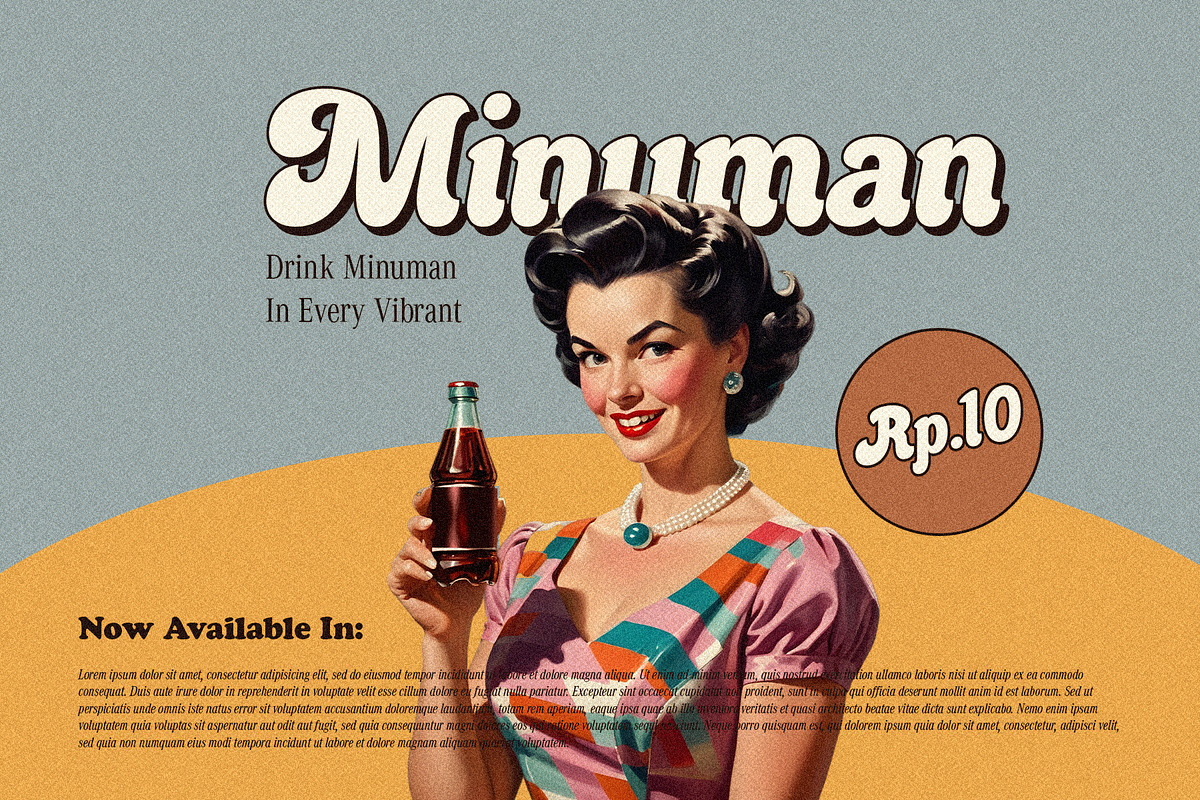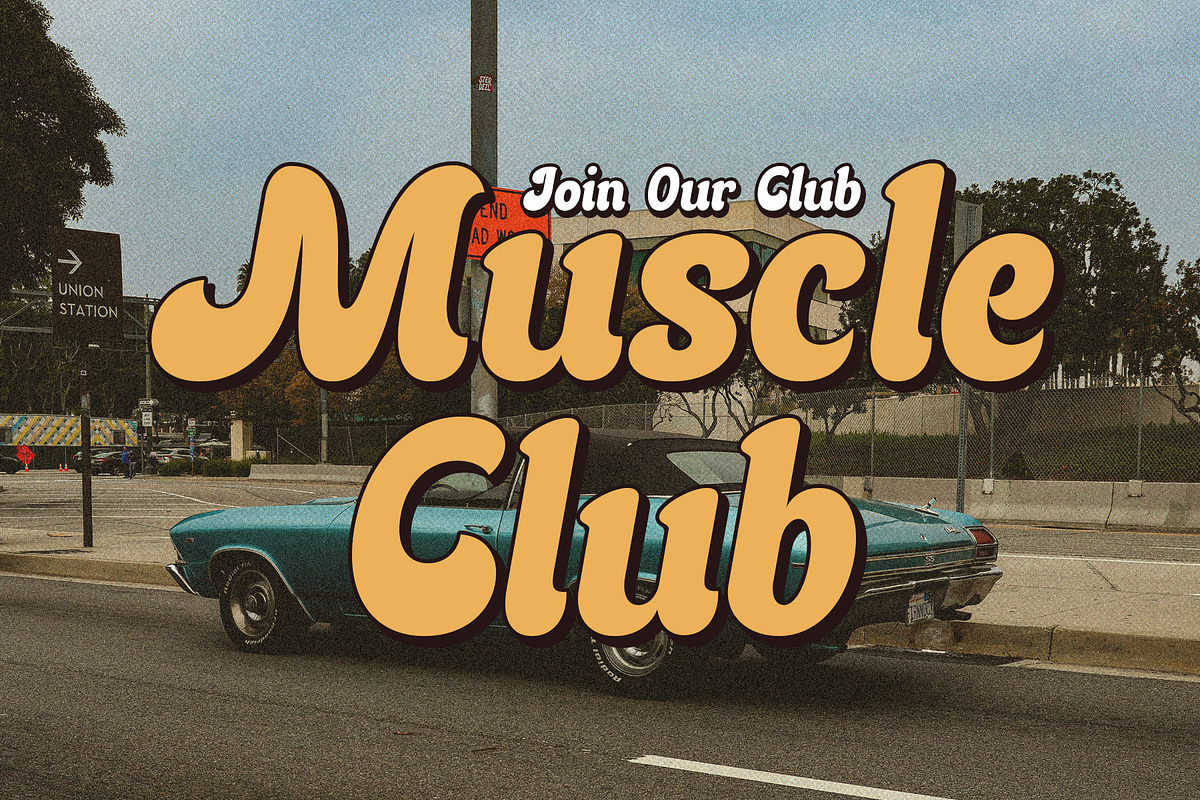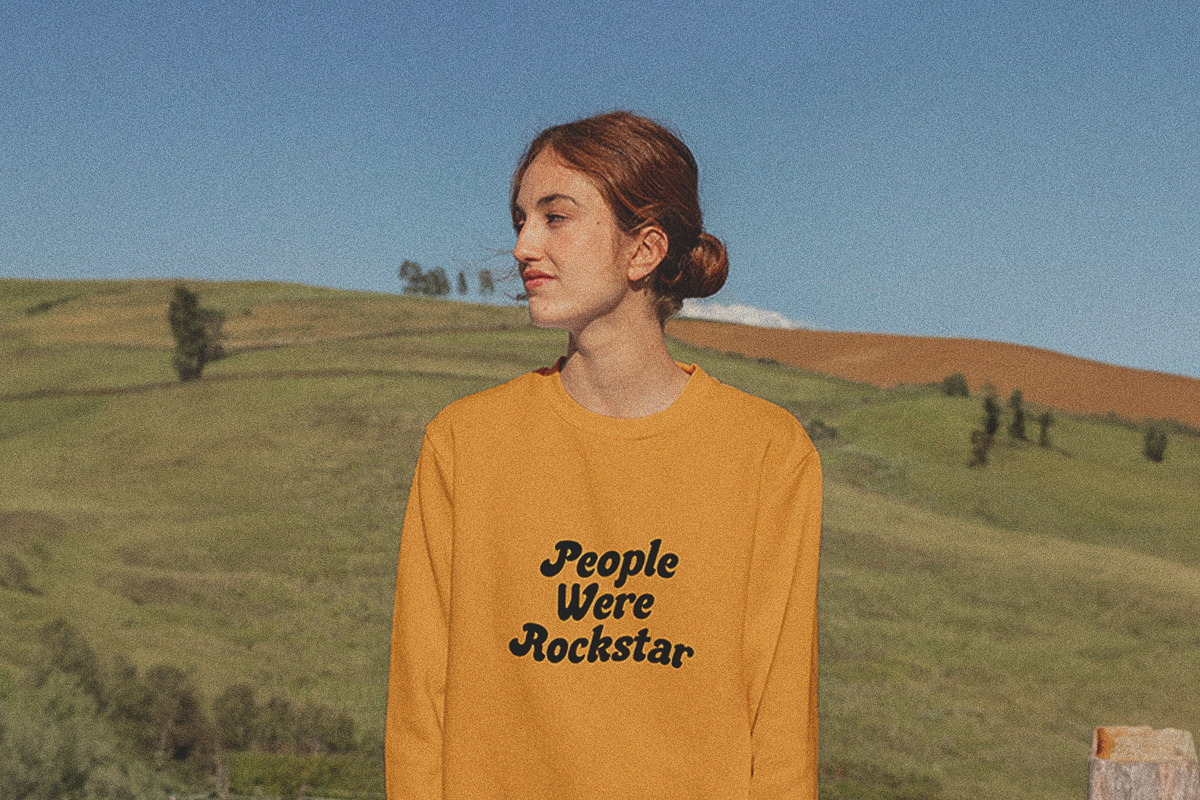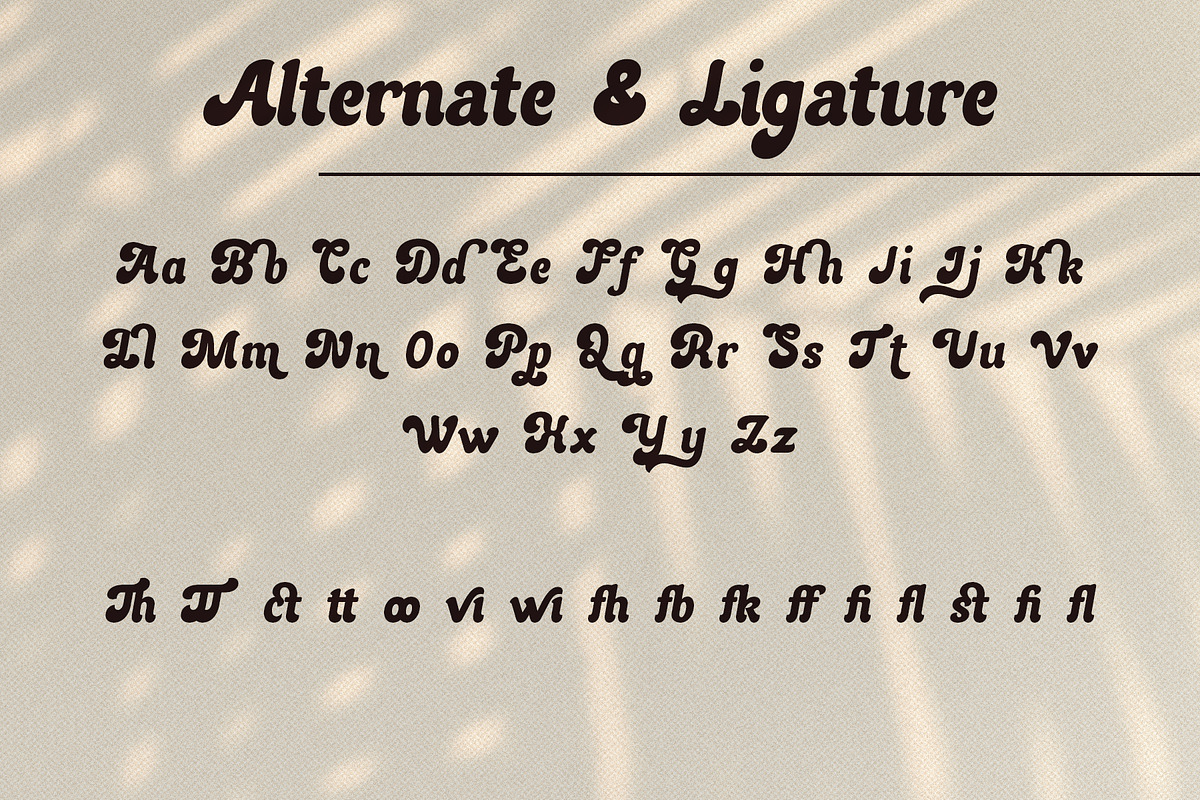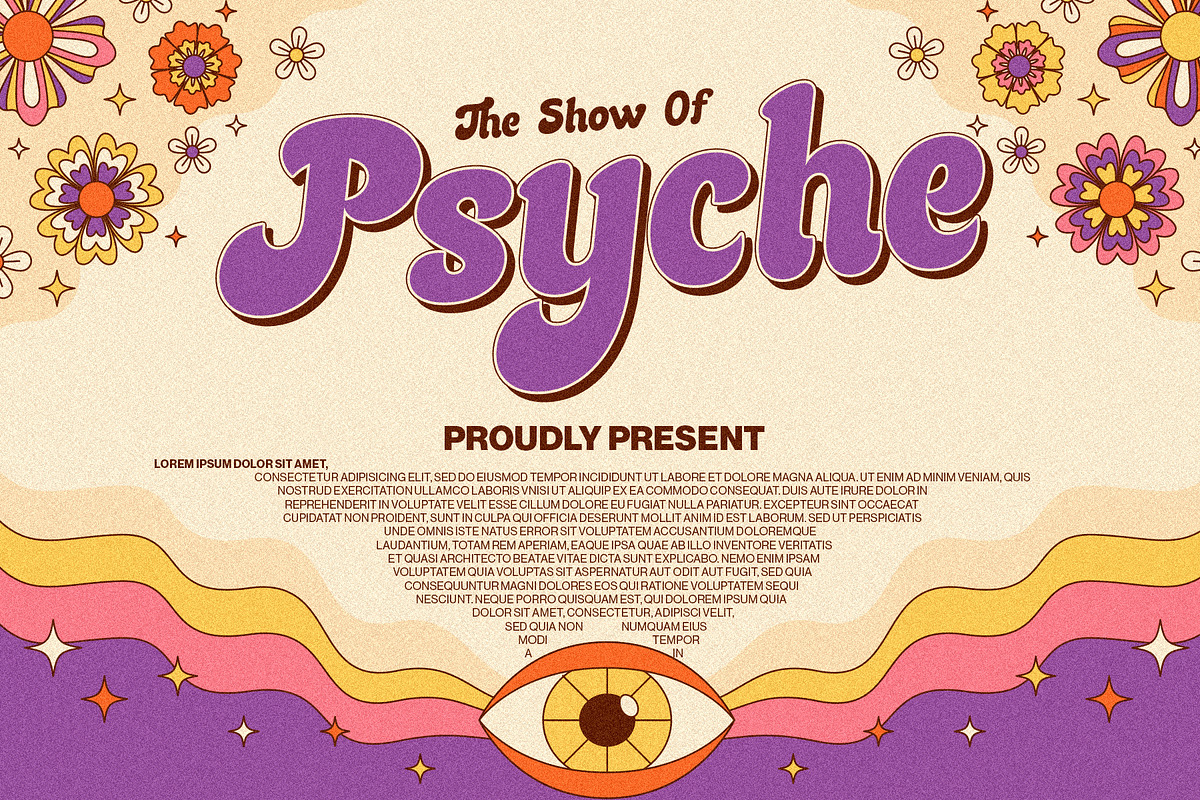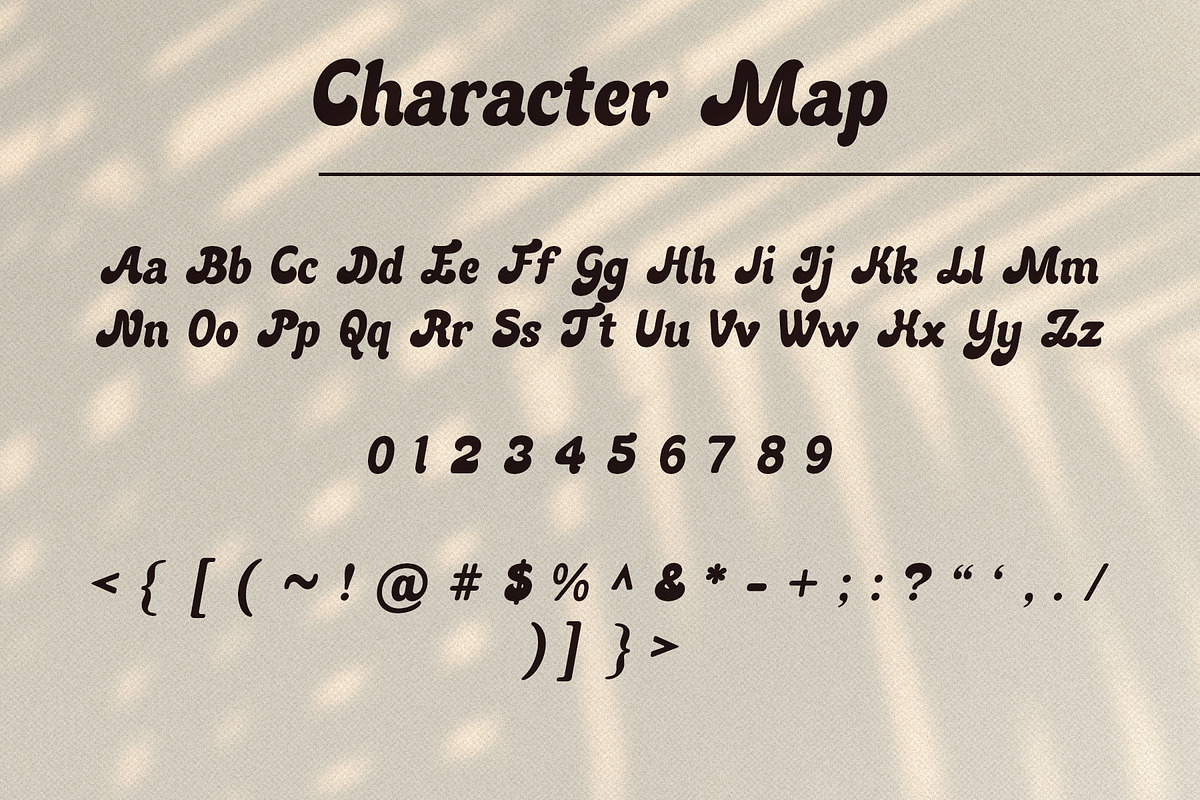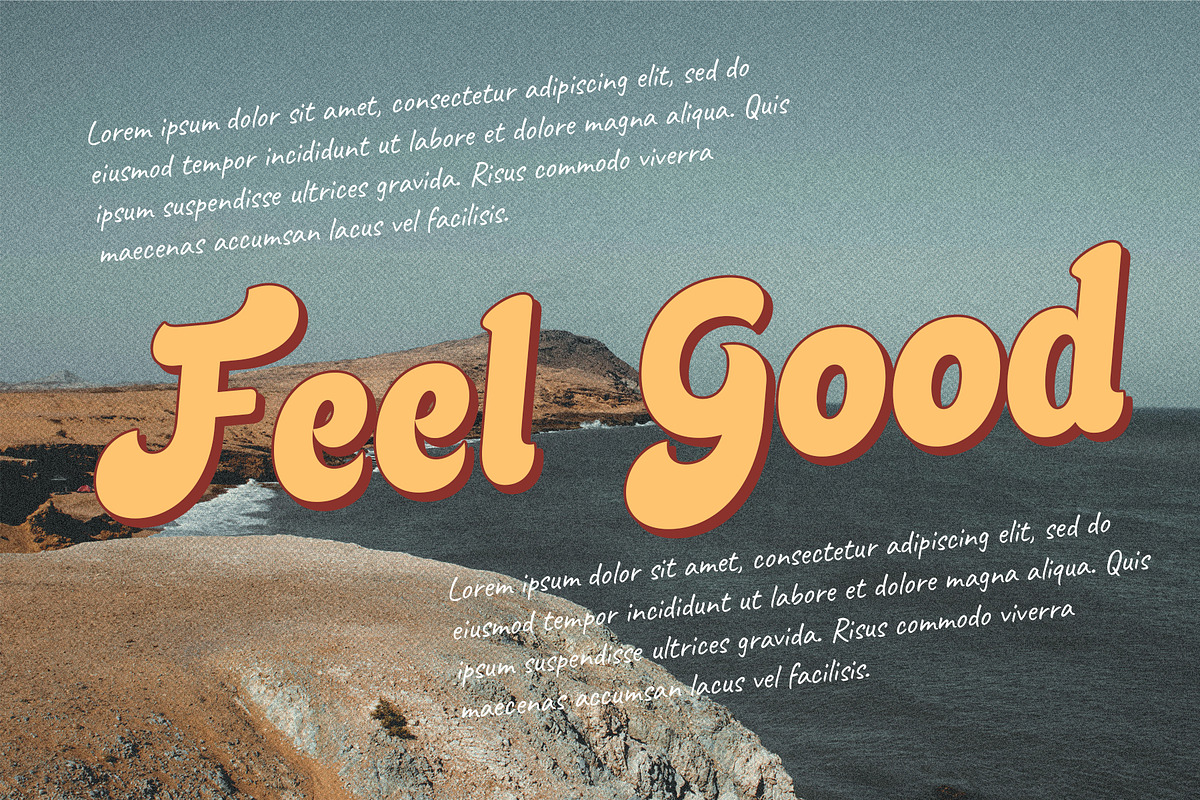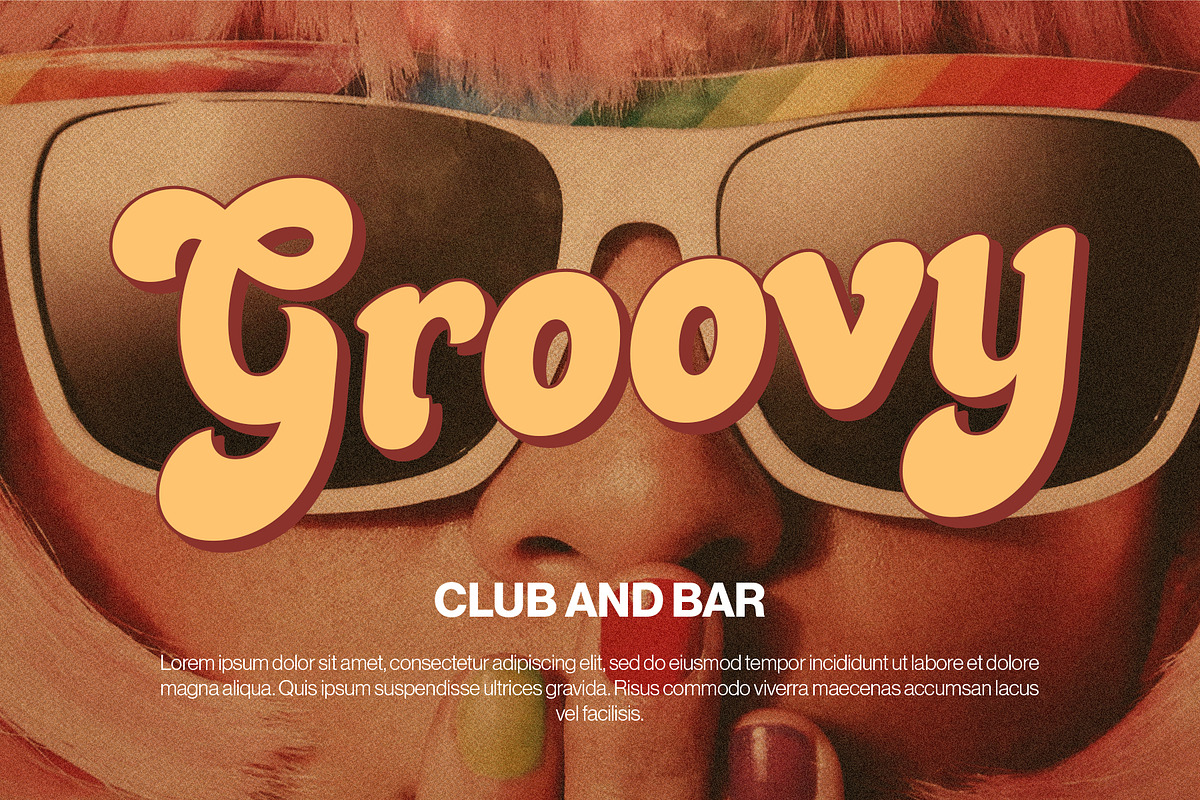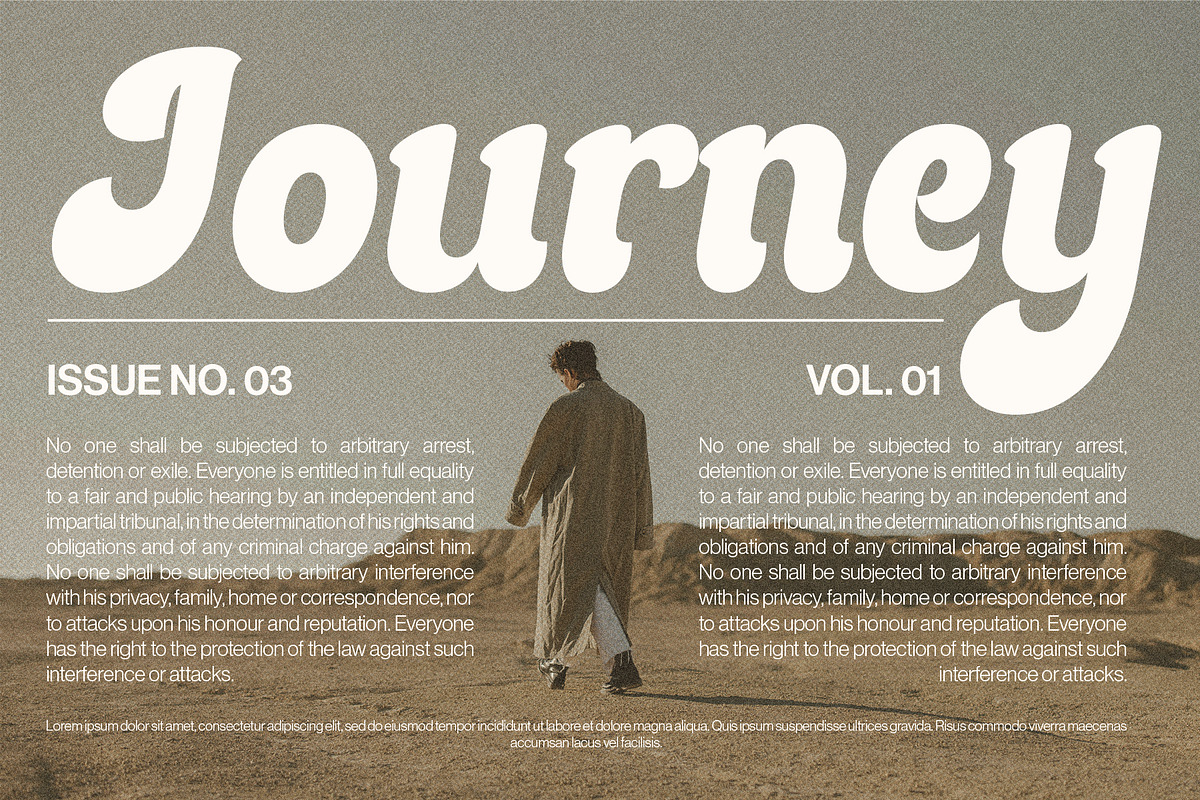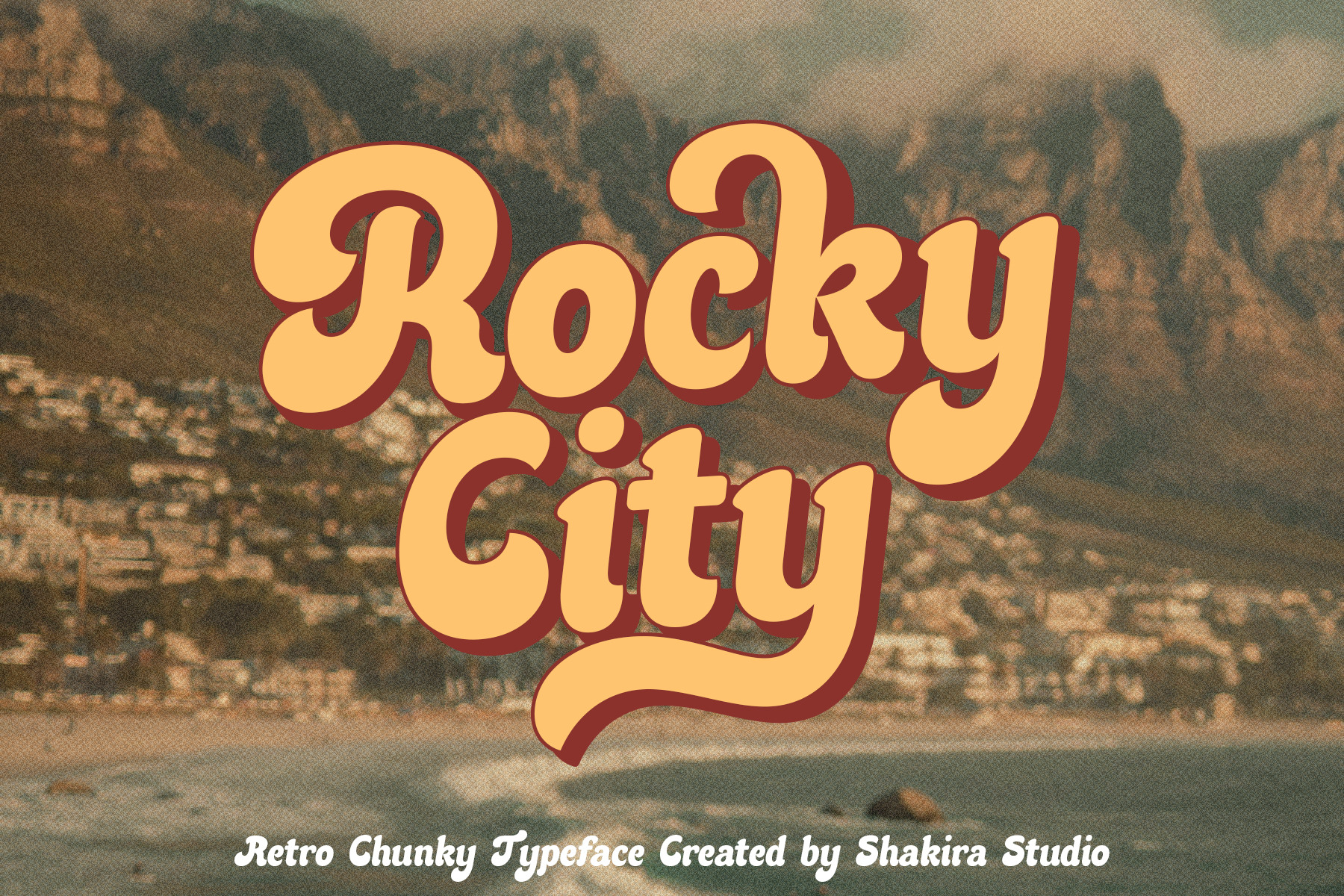
Rocky City - Retro Chunky Typeface
Introducing Rocky City - The Retro Chunky Serif Font with Bold Character!
Rocky City is not just a font; it's a powerful throwback to vintage design with a modern edge. Perfectly capturing the essence of #RetroFonts and #TypographyTrends, Rocky City is crafted to make a bold impression.
With its thick, chunky serif characters and unique alternates and ligatures, Rocky City adds a distinctive and robust flair to any project. Whether you're designing standout logos, eye-catching posters, or dynamic branding materials, Rocky City ensures your work stands out with style and strength.
- Opentype features ( ligature, alternate )